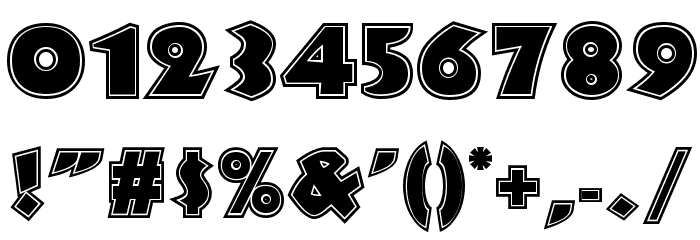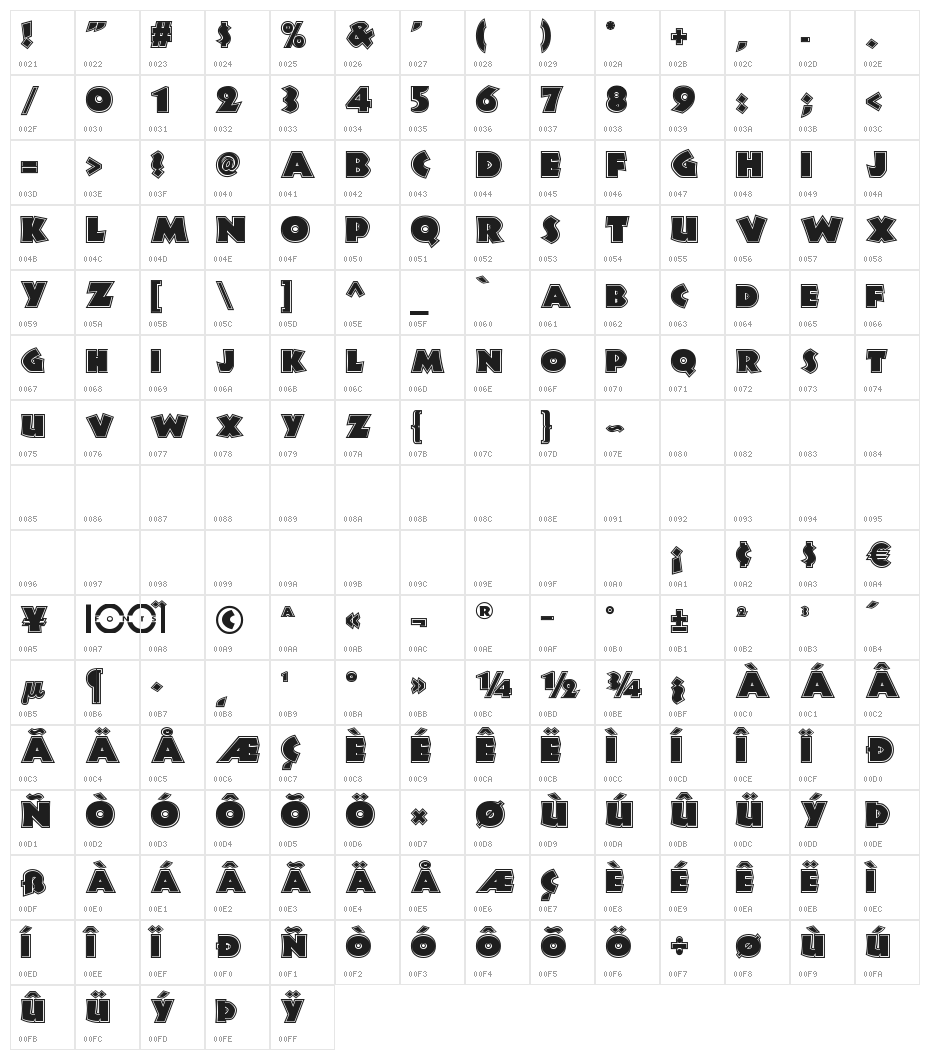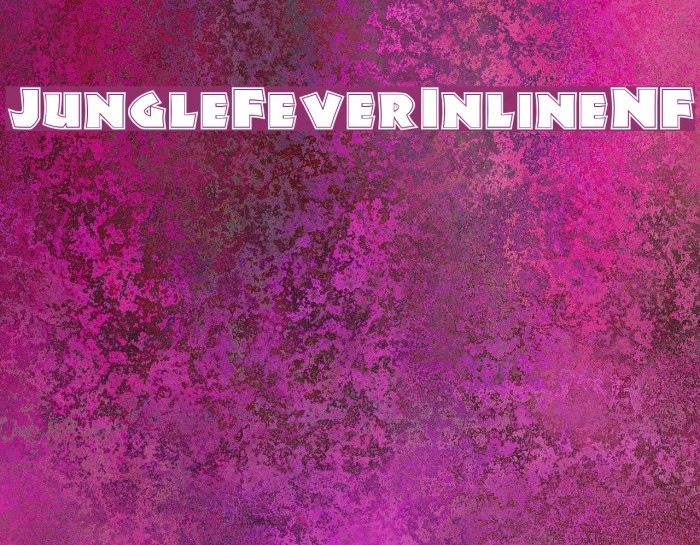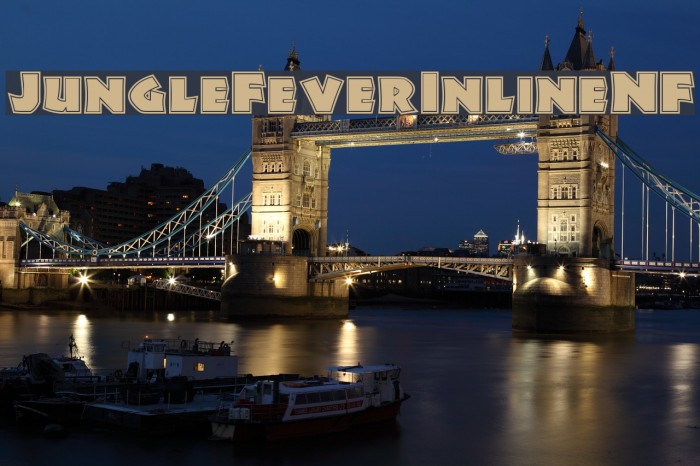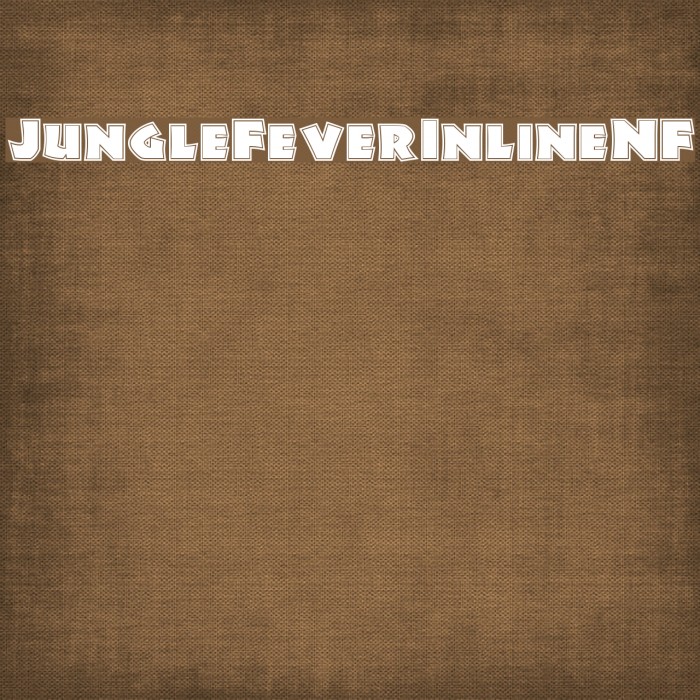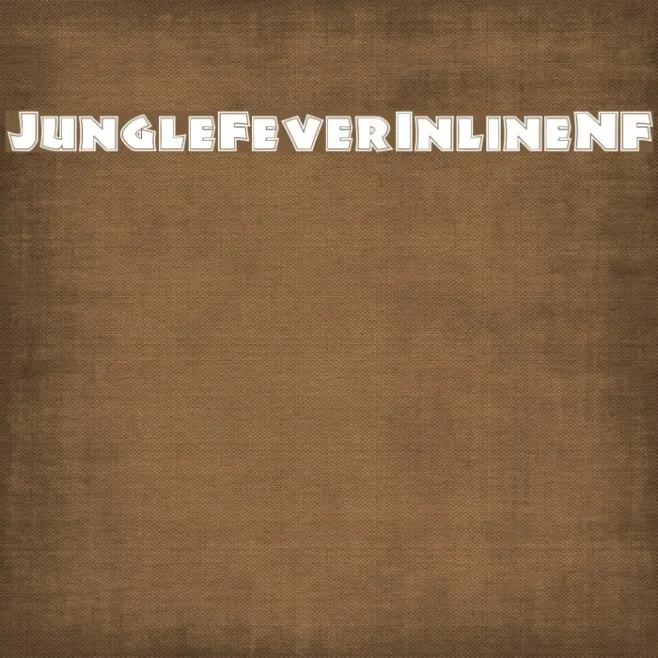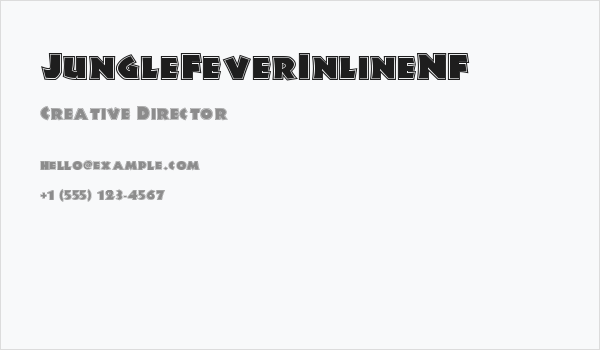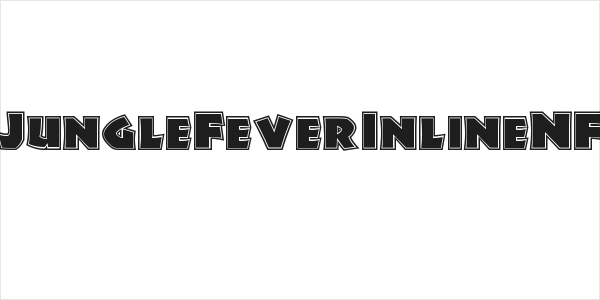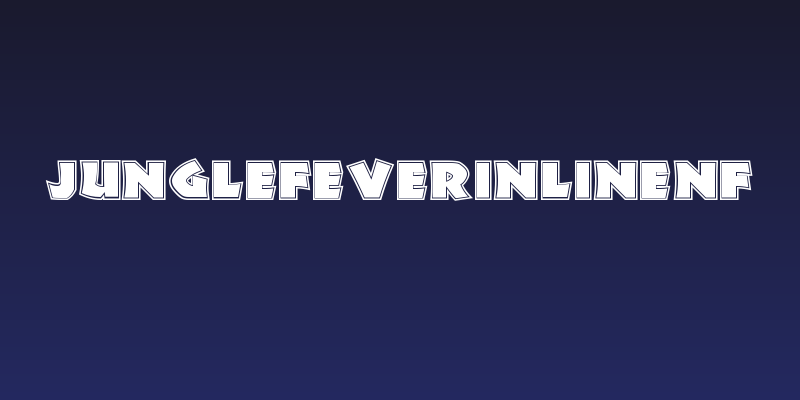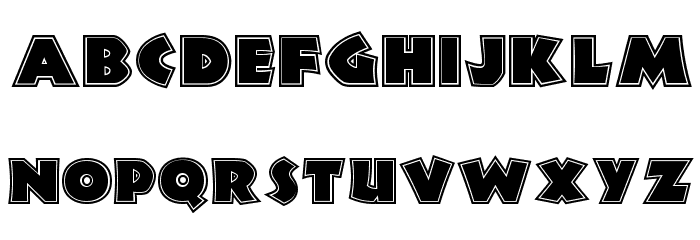
JungleFeverInlineNF Font
JungleFeverInlineNF Description
This font features a bold, decorative style with a distinct inline design that adds depth and dimension to each character. The uppercase letters are robust and angular, with a playful yet assertive presence. The lowercase letters maintain the same boldness, ensuring consistency throughout the typeface. Numbers and special characters are equally bold, making them stand out. The inline detail creates a striking contrast, enhancing readability while adding a unique flair. This font is perfect for projects that require a strong visual impact.
| Proposed Projects | Ideal for posters, logos, headlines, and any design needing a bold, eye-catching typeface. |